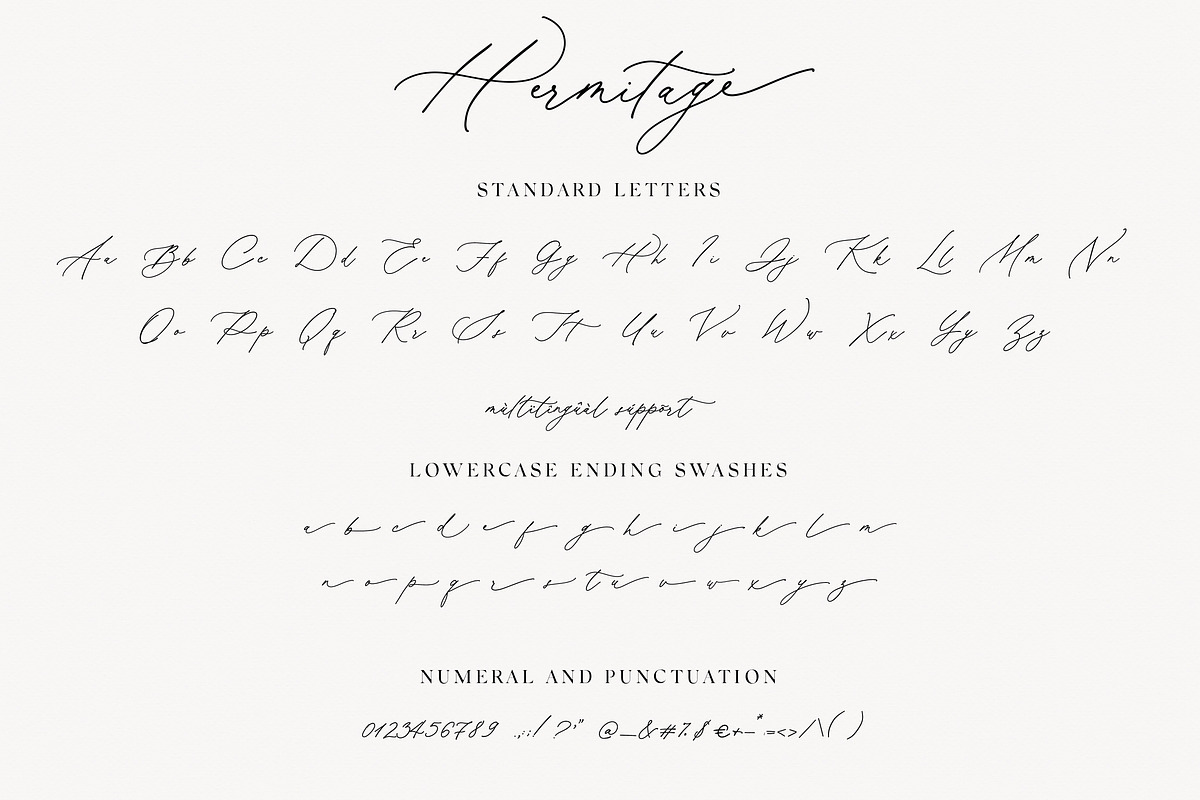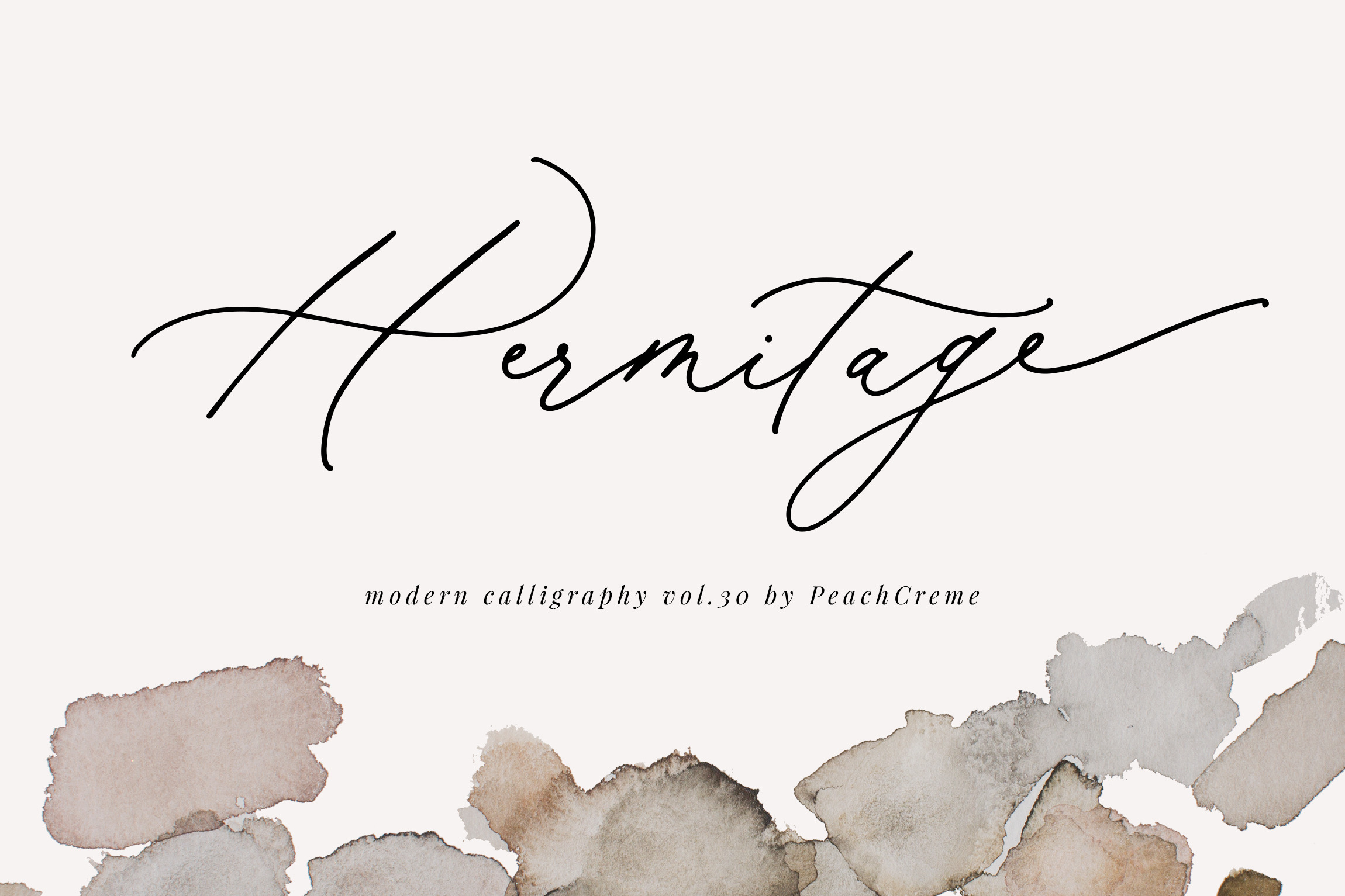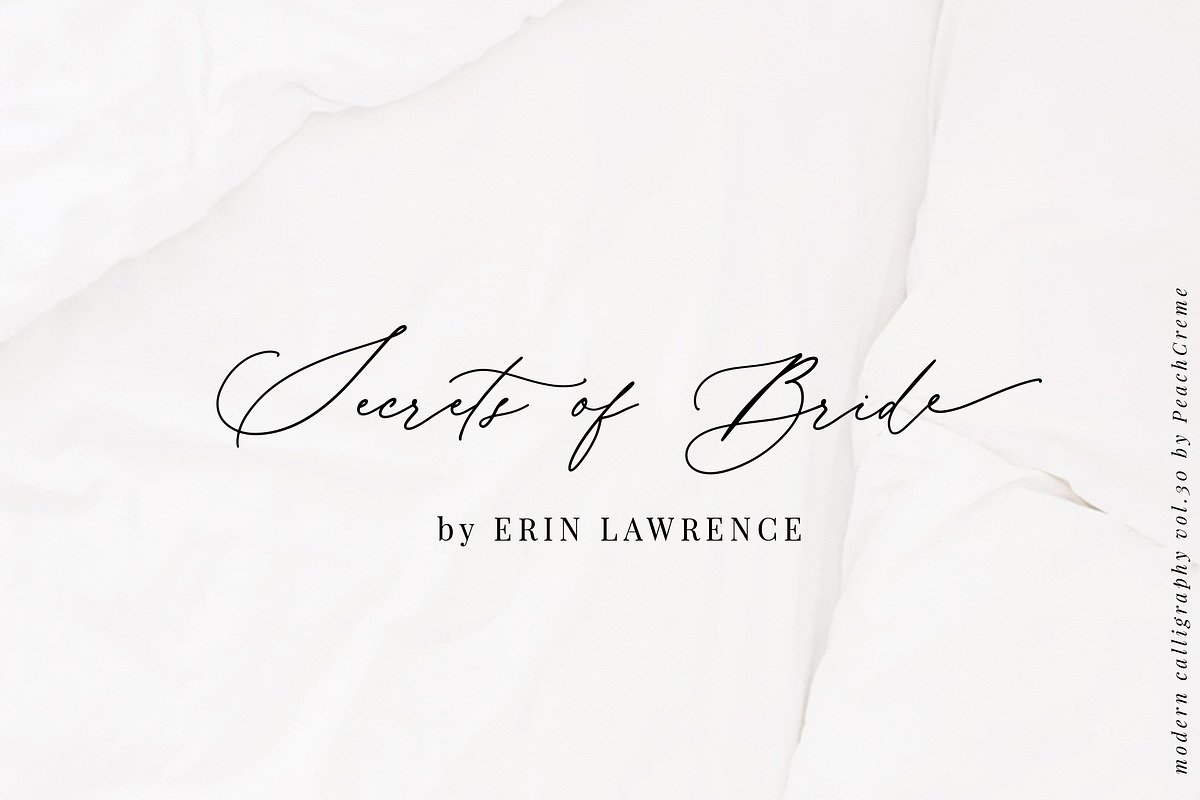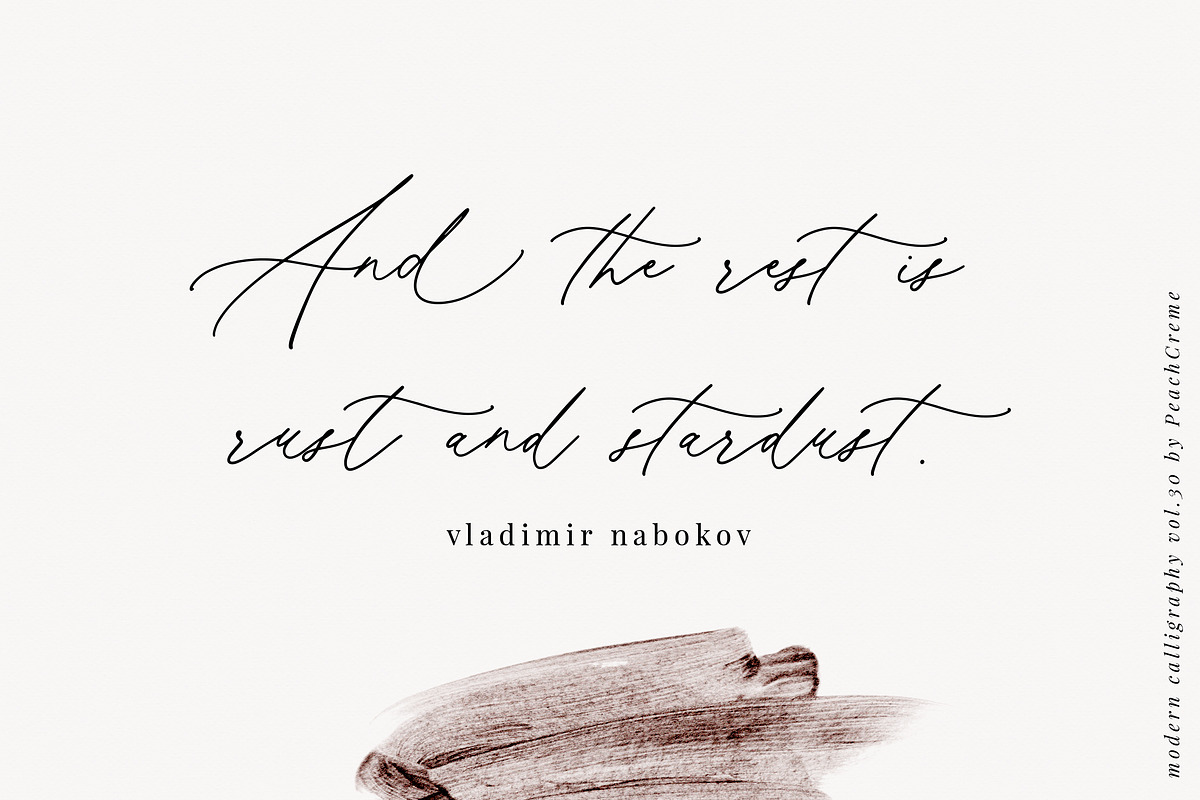
Hermitage Modern Calligraphy font
Hermitage is chic modern calligraphy font.
Hermitage includes full set of lovely uppercase and lowercase letters, multilingual symbols, numerals, punctuation and ending lowercase swashes. The font has smooth texture, so would be perfect for all types of printing techniques+you can do embroidery, laser cut, gold foil etc.